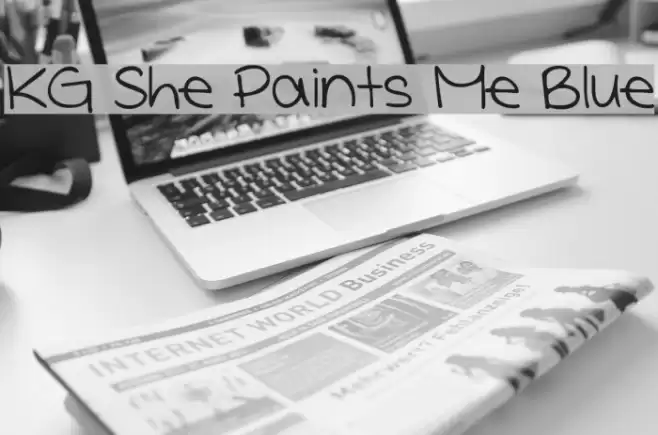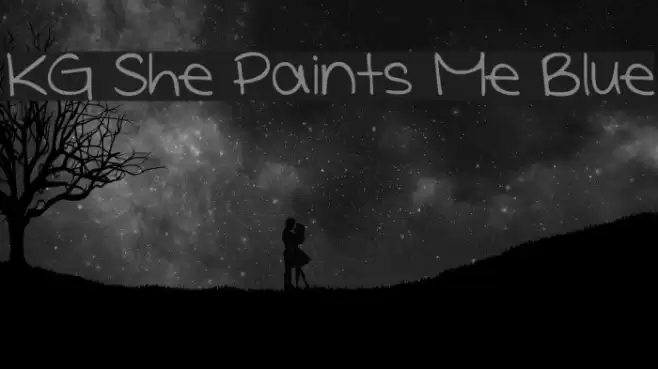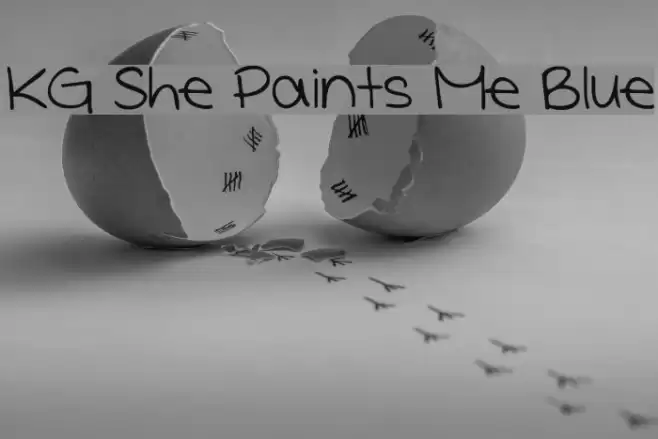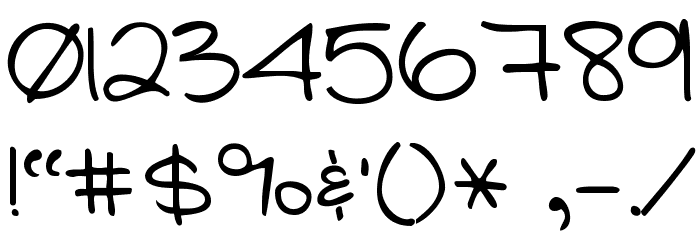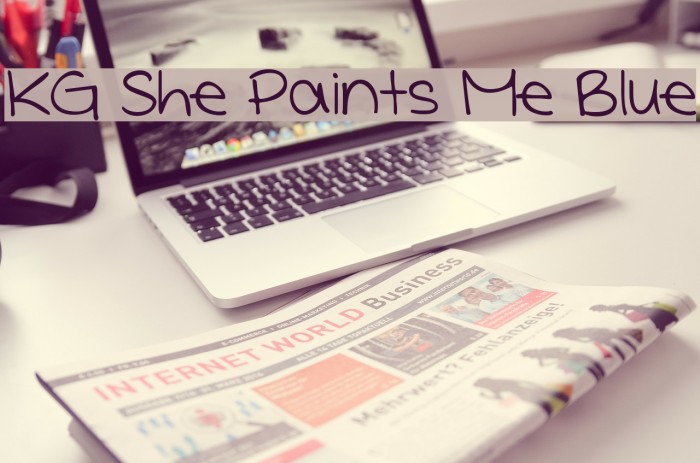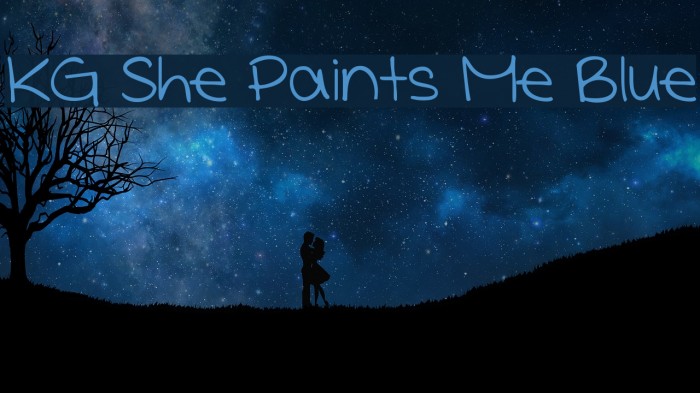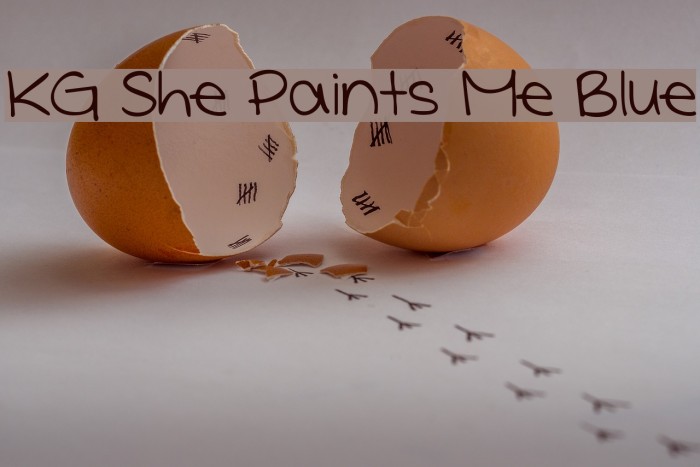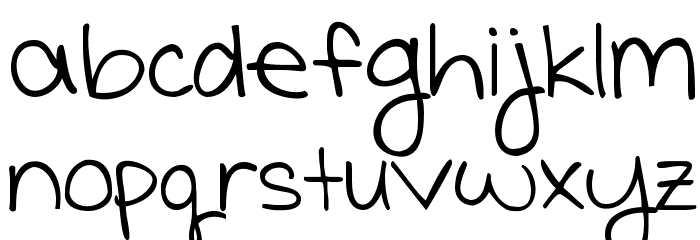
KG She Paints Me Blue Font
KG She Paints Me Blue Description
This font features a playful and whimsical handwritten style, characterized by its smooth, flowing curves and rounded edges. The letters are slightly irregular, adding a personal and informal touch. The uppercase letters maintain a consistent height, while the lowercase letters vary in size, contributing to the font's casual and friendly appearance. The numerals and special characters are designed to match the overall style, ensuring a cohesive look across all text elements. This font is ideal for projects that require a personal, approachable, and creative feel.
A playful, handwritten font with smooth curves and a whimsical style from Uncategorized fonts.
- Proposed Projects: Ideal for greeting cards, children's books, personal blogs, and creative branding projects.
- Overall Style: Playful and Whimsical
- Use Case: Headlines, Invitations, Personal Projects